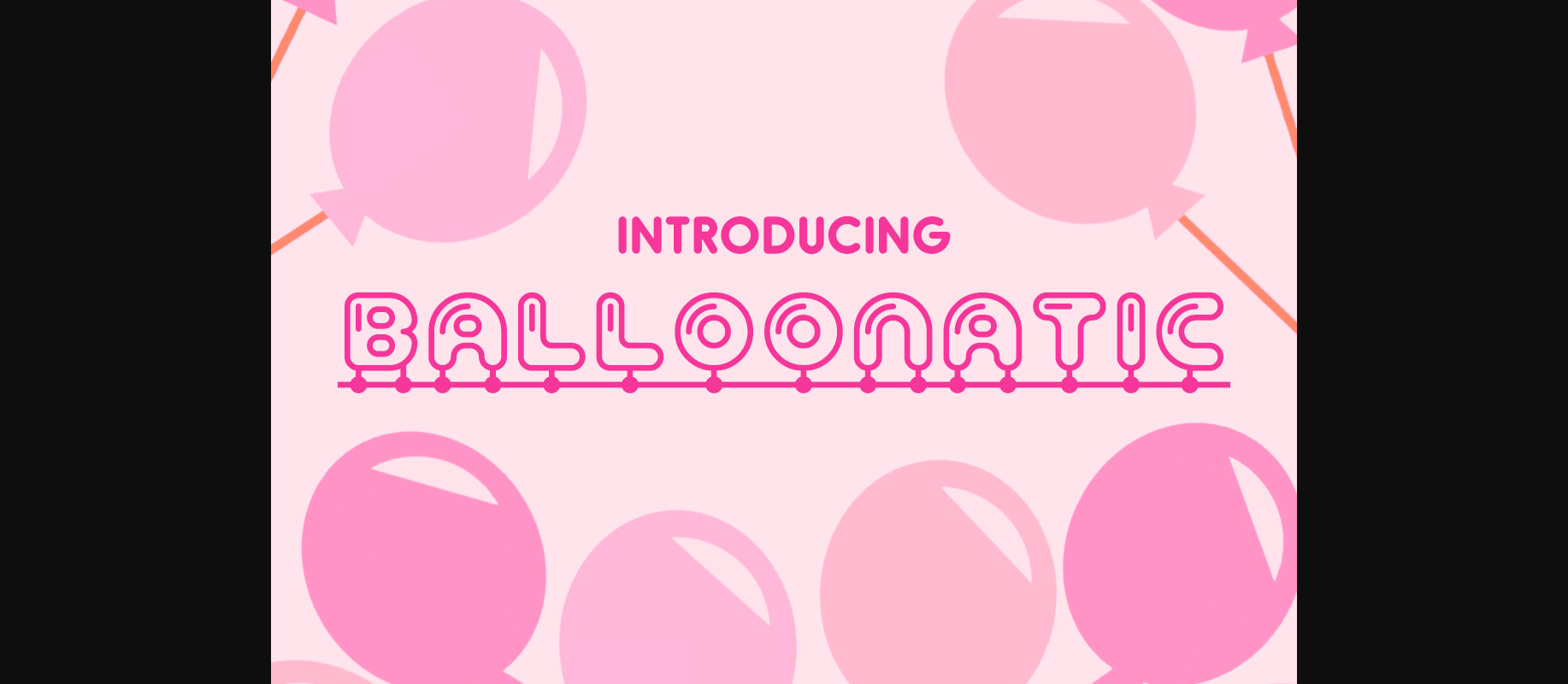
HomeDecorative FontsBalloonatic Font Decorative Fonts Balloonatic Font FacebookXPinterestWhatsApp 1 of 1 About Balloonatic Font Balloonatic is a fun and playful typeface with a unique look that will give your design a happy look. DOWNLOAD NOW People also explored Blapuhy Font School Stuff Font Oldblues Font Ragembio Font Hey Pumpkin Font Radiants Font Morning Glory Font Butter Valentine Font Vintage Queen Monogram Font 287 0 TagsBalloonatic Font Previous articleDusker Tall FontNext articleJitter Font LEAVE A REPLY Cancel reply Comment: Please enter your comment! Name:* Please enter your name here Email:* You have entered an incorrect email address! Please enter your email address here Website: Save my name, email, and website in this browser for the next time I comment. Personal Use Free Predators Personal Use Free Read more about this font Hallo Betty Personal Use Free Read more about this font Carved Wood Personal Use Free Read more about this font Boldist Personal Use Free Read more about this font BLOG Best Fonts for YouTube Videos: Make Your Thumbnails Stand Out Best Fonts for YouTube Videos: Make Your Thumbnails Stand Out Choosing the right font can make a massive difference in how your YouTube videos perform.... Modern Sans-Serif Fonts That Brands Love in 2025 Best Fonts for T-Shirt Design – Top 2025 Picks To increase your work productivity, choose the most readable fonts.